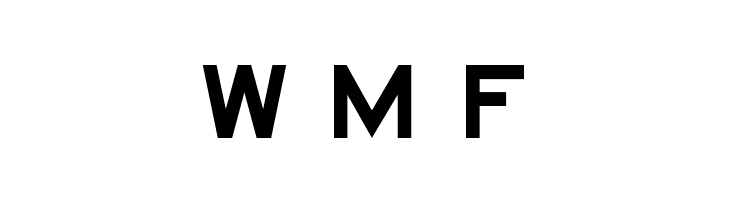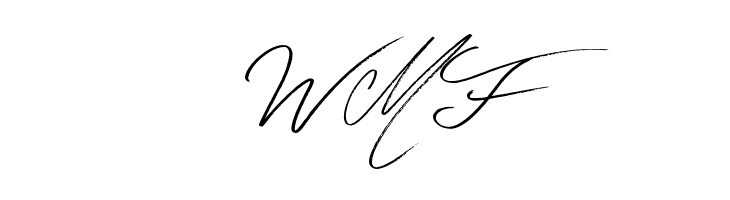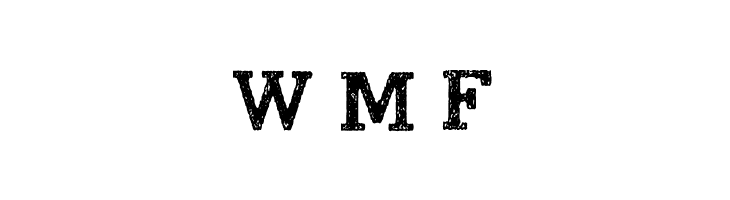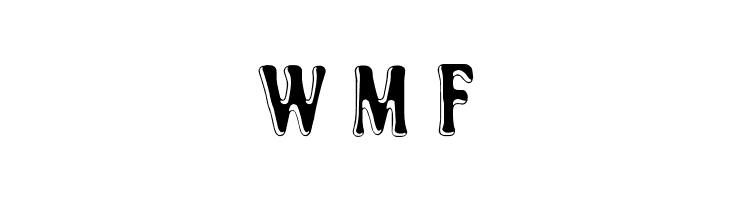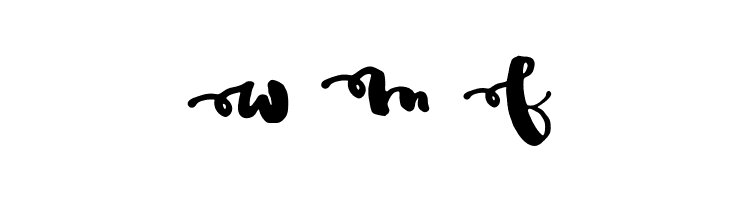
A bold, geometric font with strong, angular lines and a modern, industrial feel.
A sleek, italic font with elongated, flowing characters for a modern look.
A bold, geometric outlined font with a modern and edgy style.
A bold, geometric font with angular elements and strong presence.
A bold, playful font with exaggerated curves and a whimsical style.
An ornate and artistic script font with flowing, interconnected letterforms.
A comprehensive set of bold, clear transportation and road signage icons.
A playful, hand-drawn display font with a cartoonish style.
A bold, geometric font with decorative elements and high contrast.
A geometric, modern font with a grid-like structure and clean lines.
A bold, decorative font with a three-dimensional effect and strong visual impact.
A bold, decorative Blackletter font with intricate, boxed characters.
A bold, distressed font with a rugged, vintage appearance.
A modern, elegant font with sharp, angular lines and geometric shapes.
A bold, decorative font inspired by street signs, featuring uppercase letters in rectangular frames.
A playful, casual handwritten font with a loose, flowing style.
A bold, oblique font with a futuristic and dynamic style.
A bold, futuristic font with geometric shapes and angular design.
A bold, geometric font with a modern, industrial feel.
A bold, modern font with geometric shapes and sharp angles.
A textured, stippled font with a hand-drawn, artistic style.
A bold, italicized font with strong strokes and a modern, dynamic style.